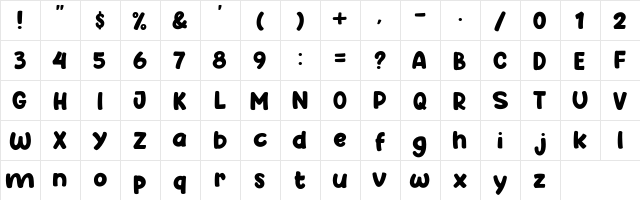
Happy School Regular
| Foundry | Khurasan |
| Designer | Khurasan |
Design Context for Happy School Typeface
Happy School offers clean, dependable letterforms without strong stylistic allegiance, making it a practical choice for designers who need flexibility.